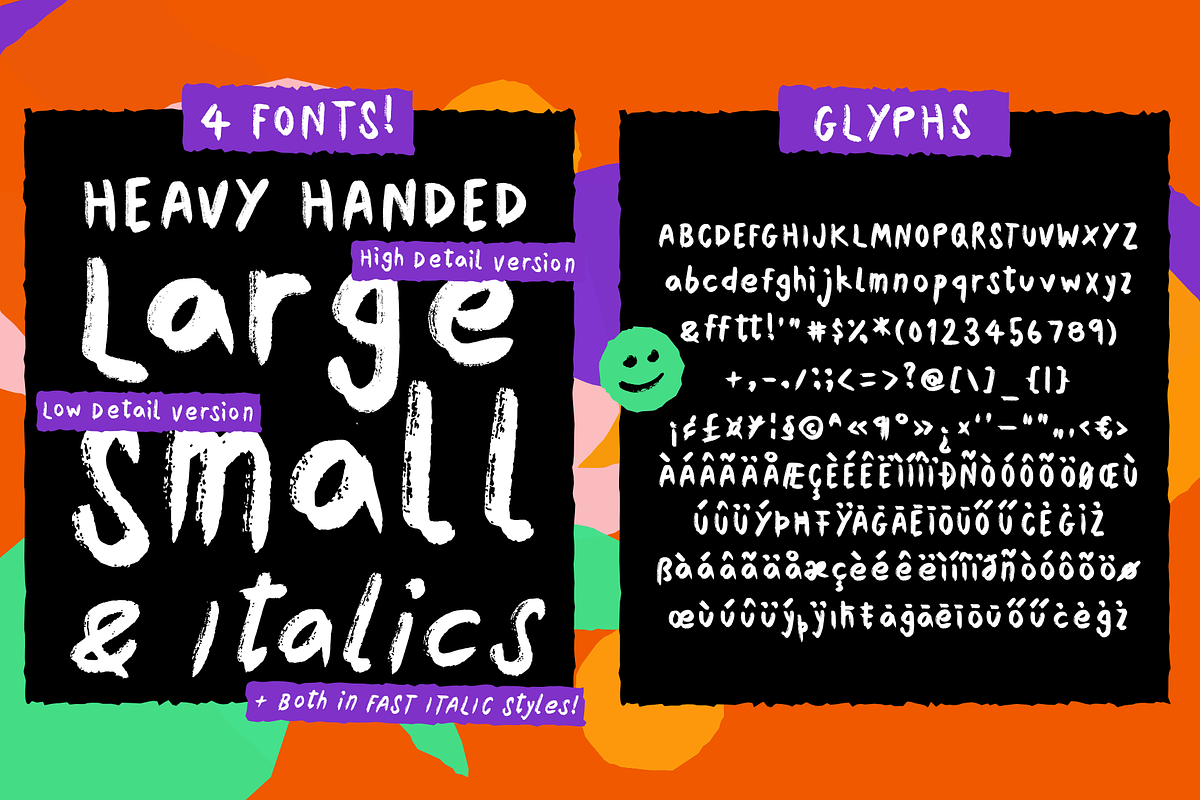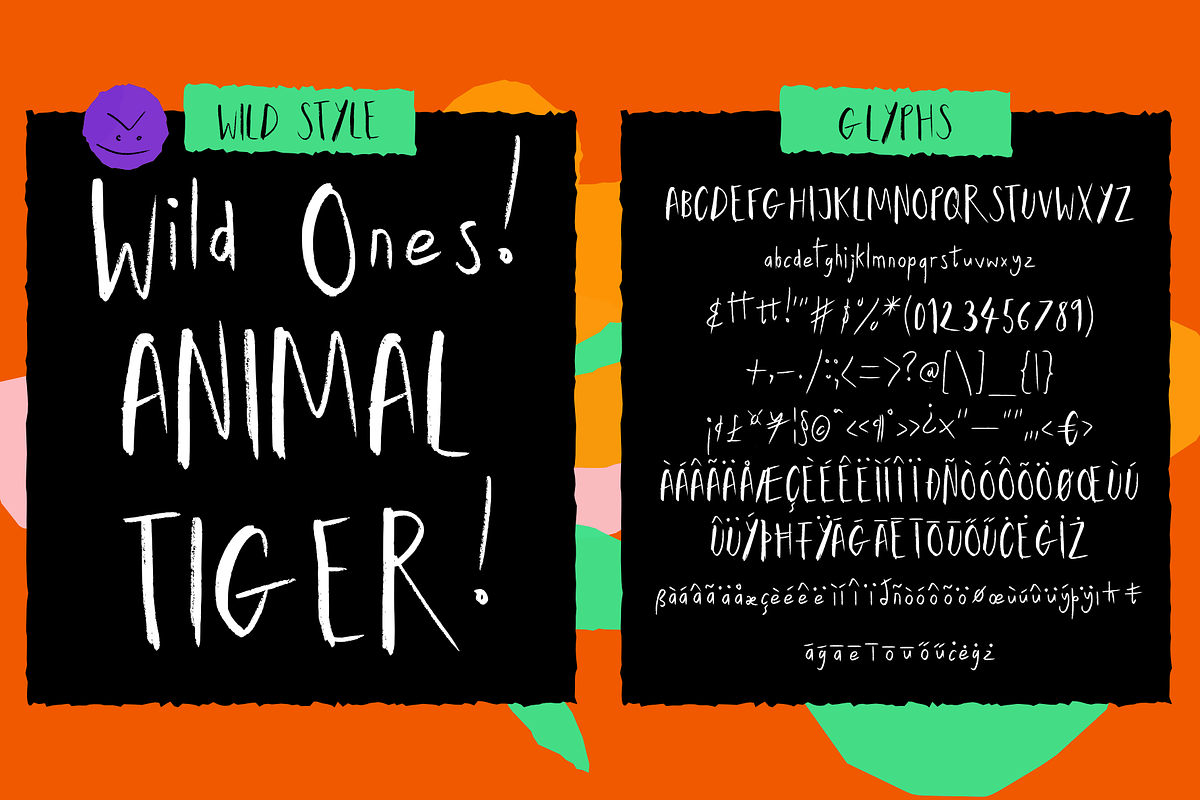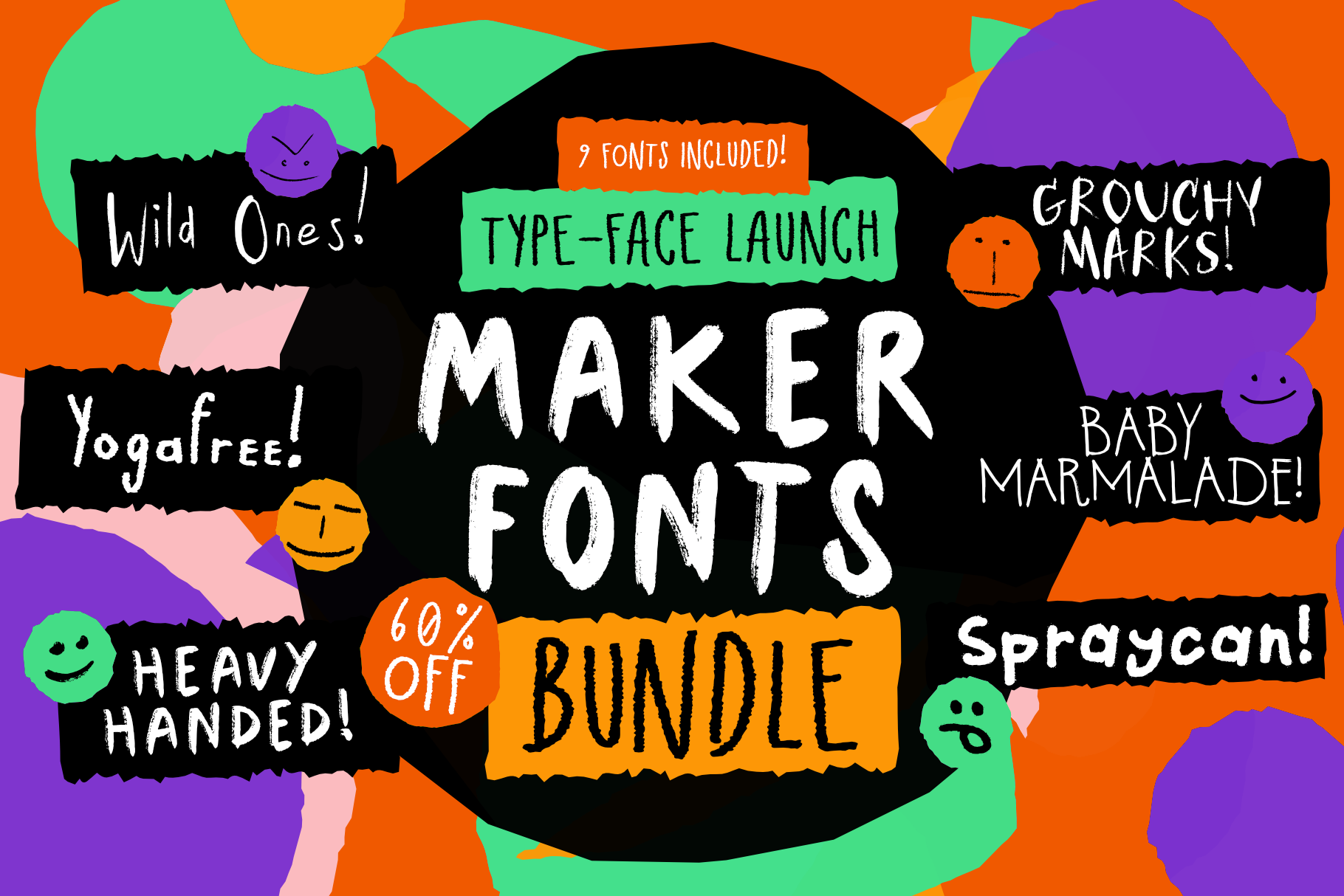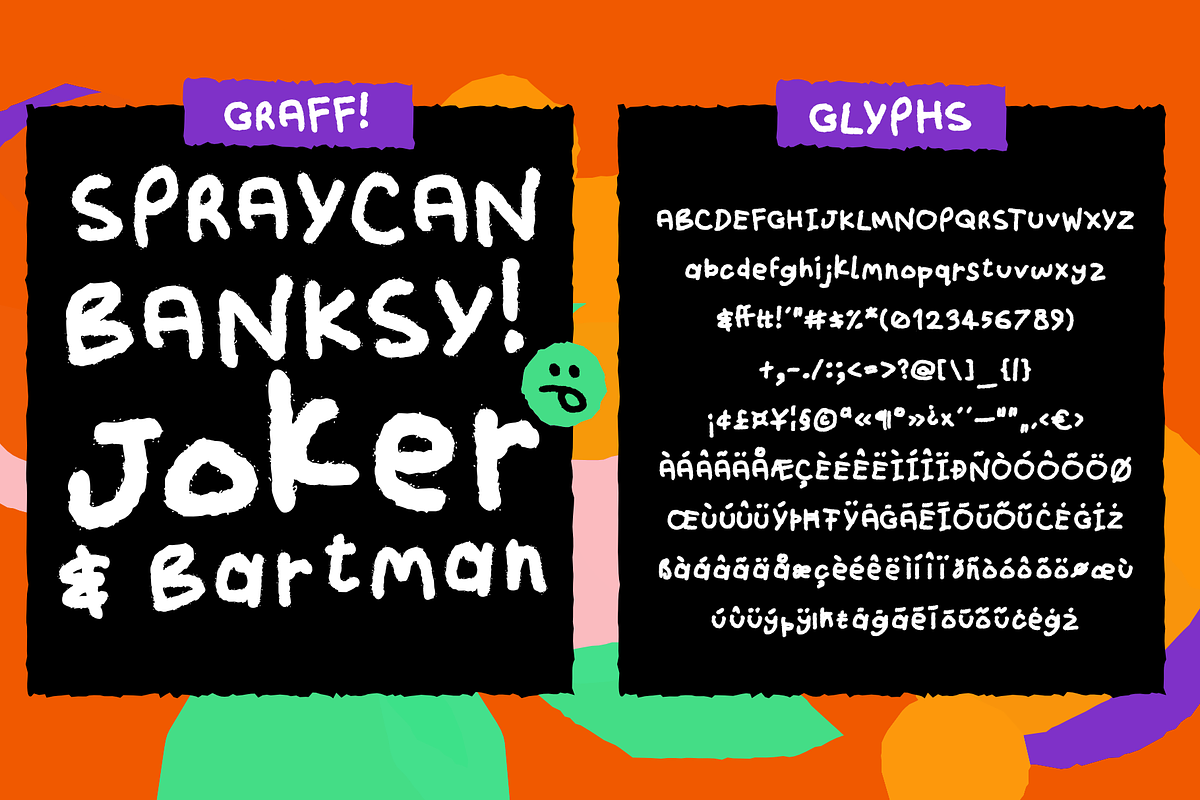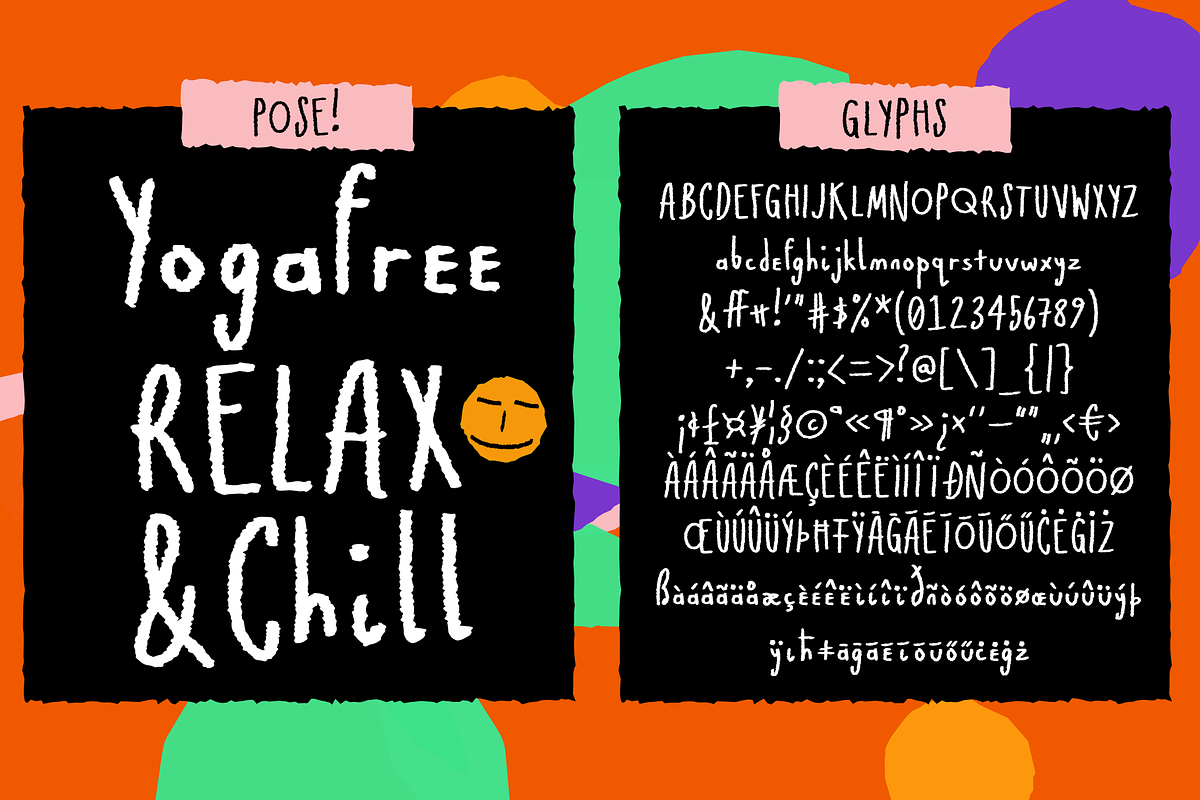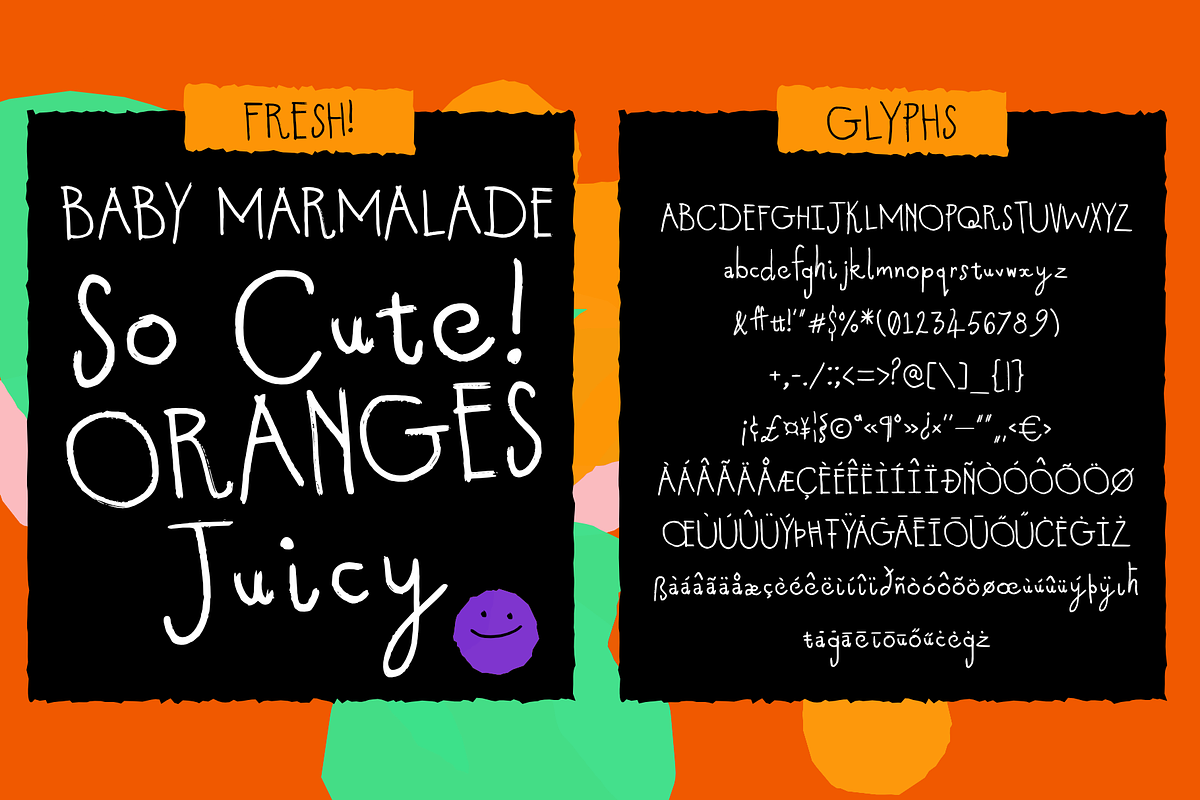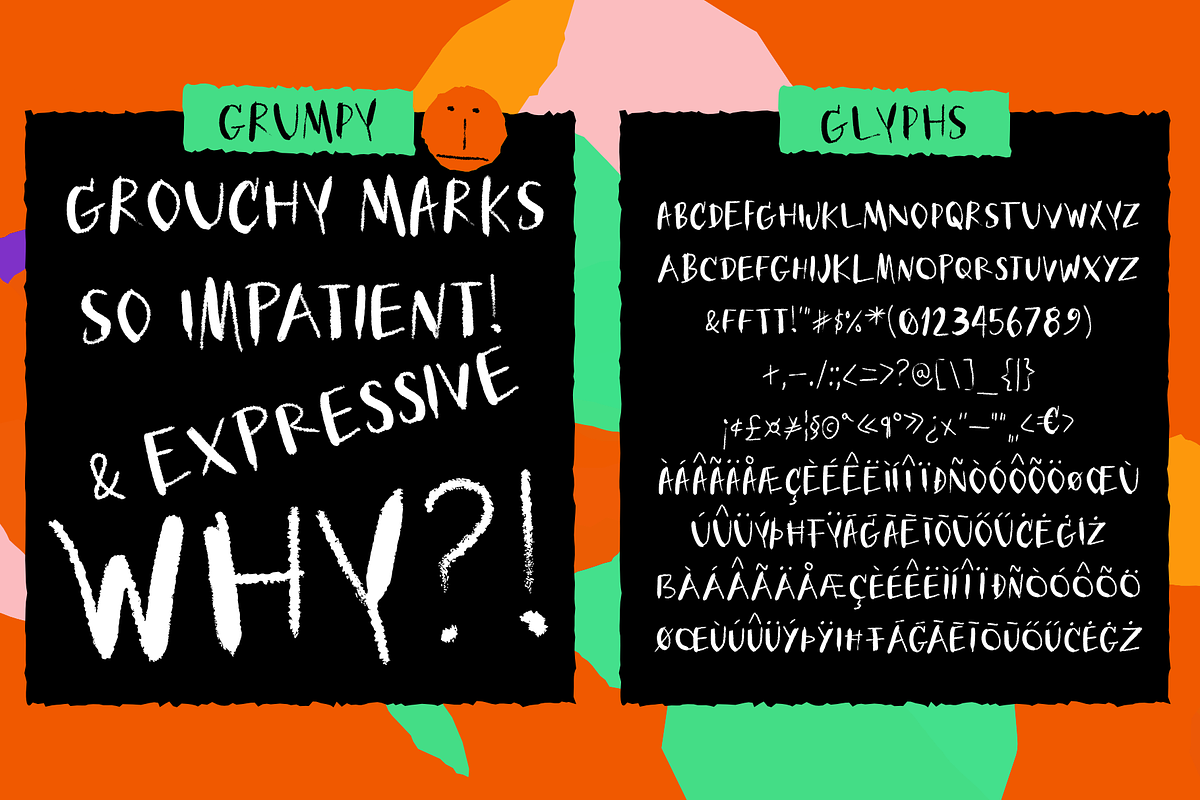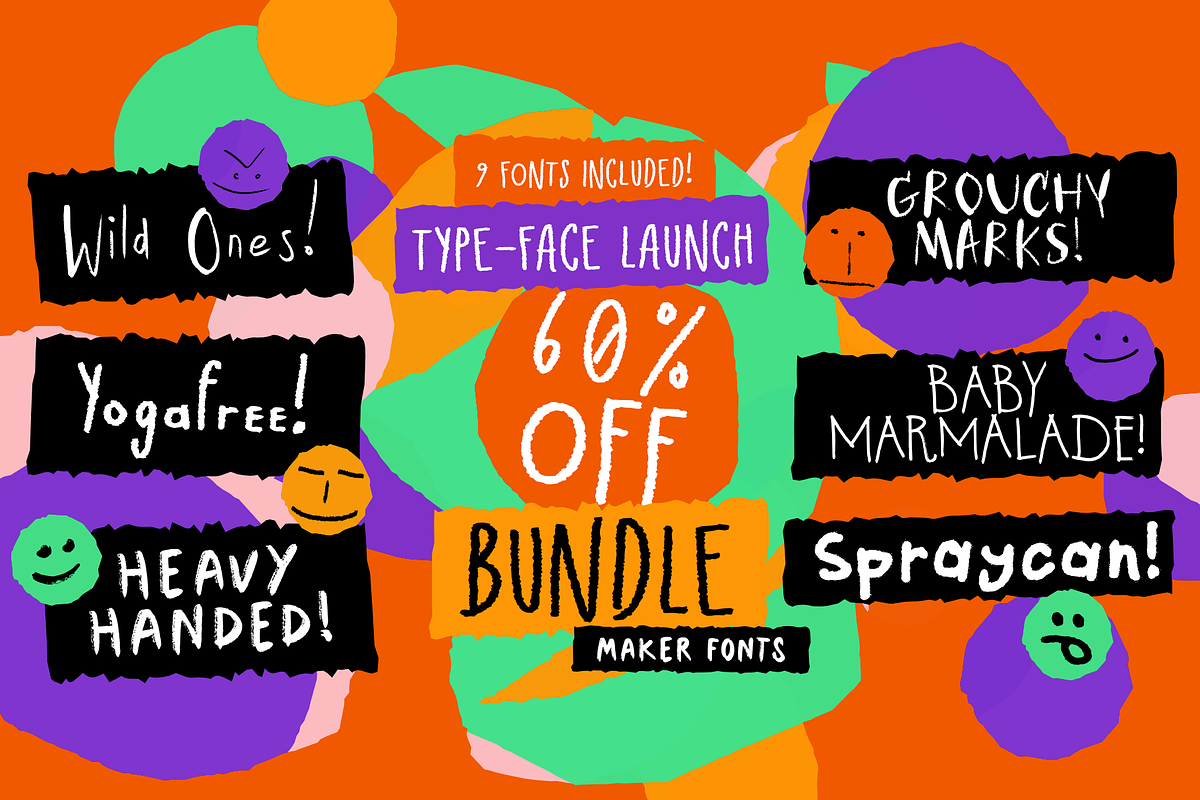
Maker Fonts Launch BUNDLE! 60% OFF!
Total of 9 font files from 6 font families:
- Wild Ones!
- Yogafree!
- Heavy Handed 4 Font Family!
- Grouchy Marks!
- Baby Marmalade!
- Spraycan!
All fonts are high quality handmade fonts with large western character sets, lots of glyphs, ligatures, contextual alternates, and 5 stylistic sets!